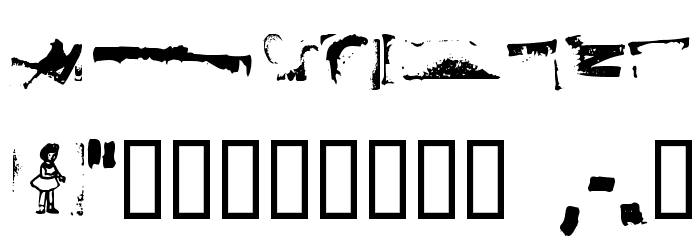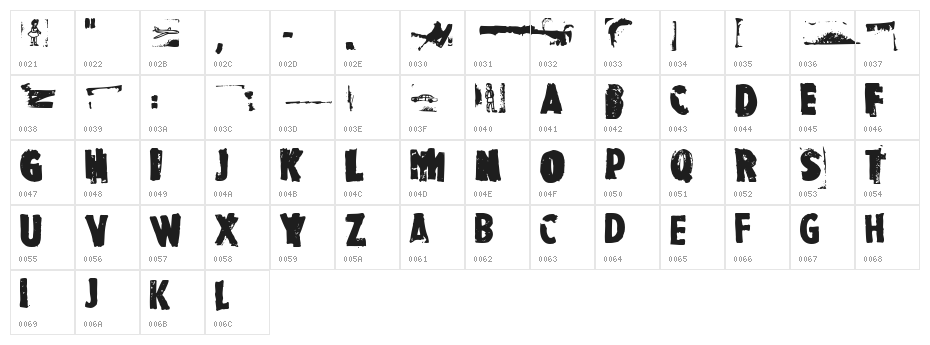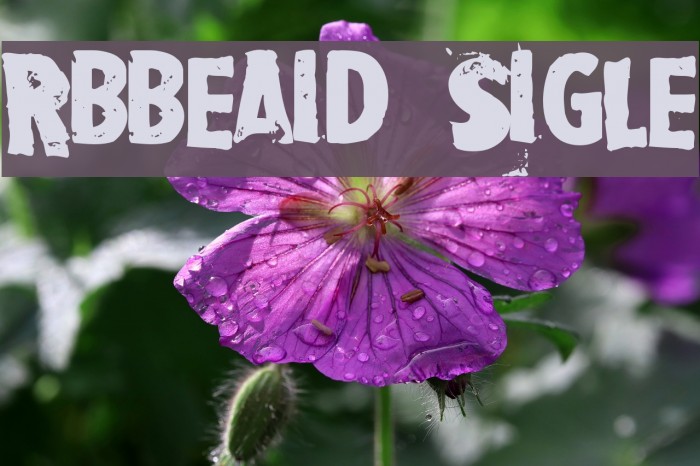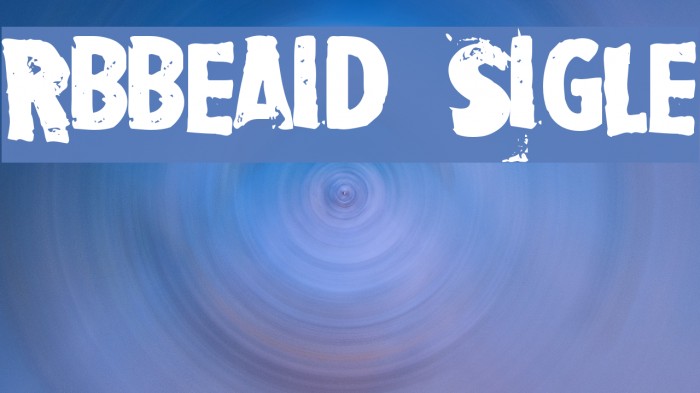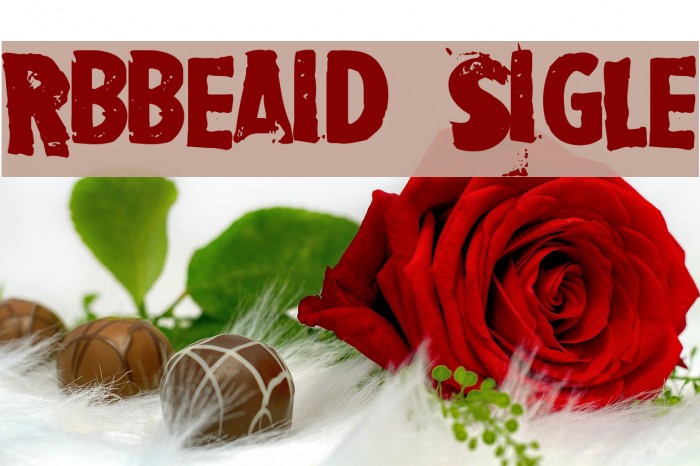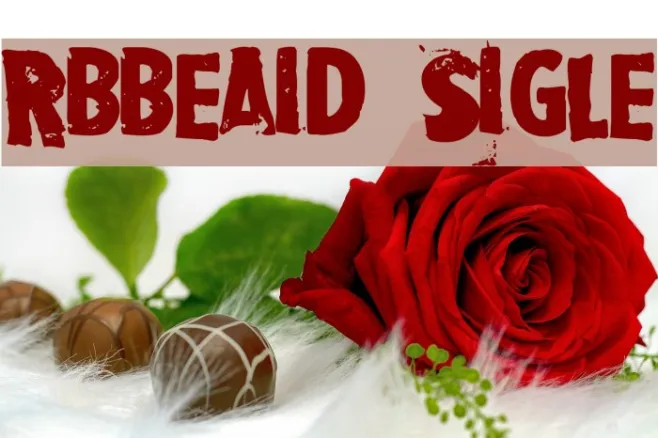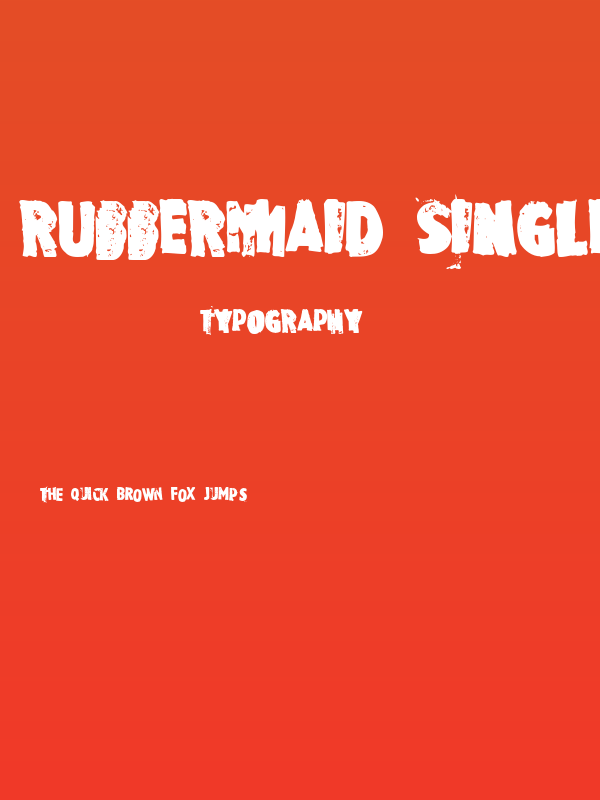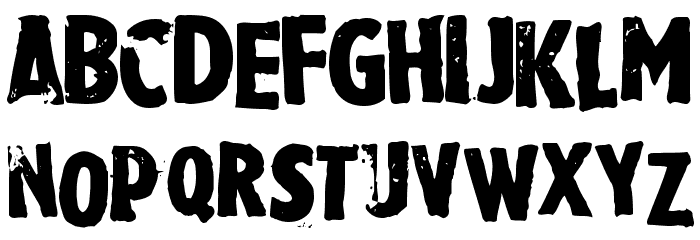
Rubbermaid Single Font
Rubbermaid Single Description
This font exhibits a bold and distressed style, characterized by its rough, textured appearance that gives it a grunge or worn-out look. The uppercase letters are prominent and impactful, with irregular edges and a hand-crafted feel. The font's unique aesthetic is achieved through its uneven strokes and varying thickness, creating a sense of movement and dynamism. The overall design is reminiscent of vintage or retro styles, making it suitable for projects that require a bold statement or an edgy, artistic touch.
| Overall Style | Vintage, Grunge |
| Proposed Projects | Ideal for album covers, posters, branding for edgy or alternative products, and any design requiring a bold, artistic statement. |